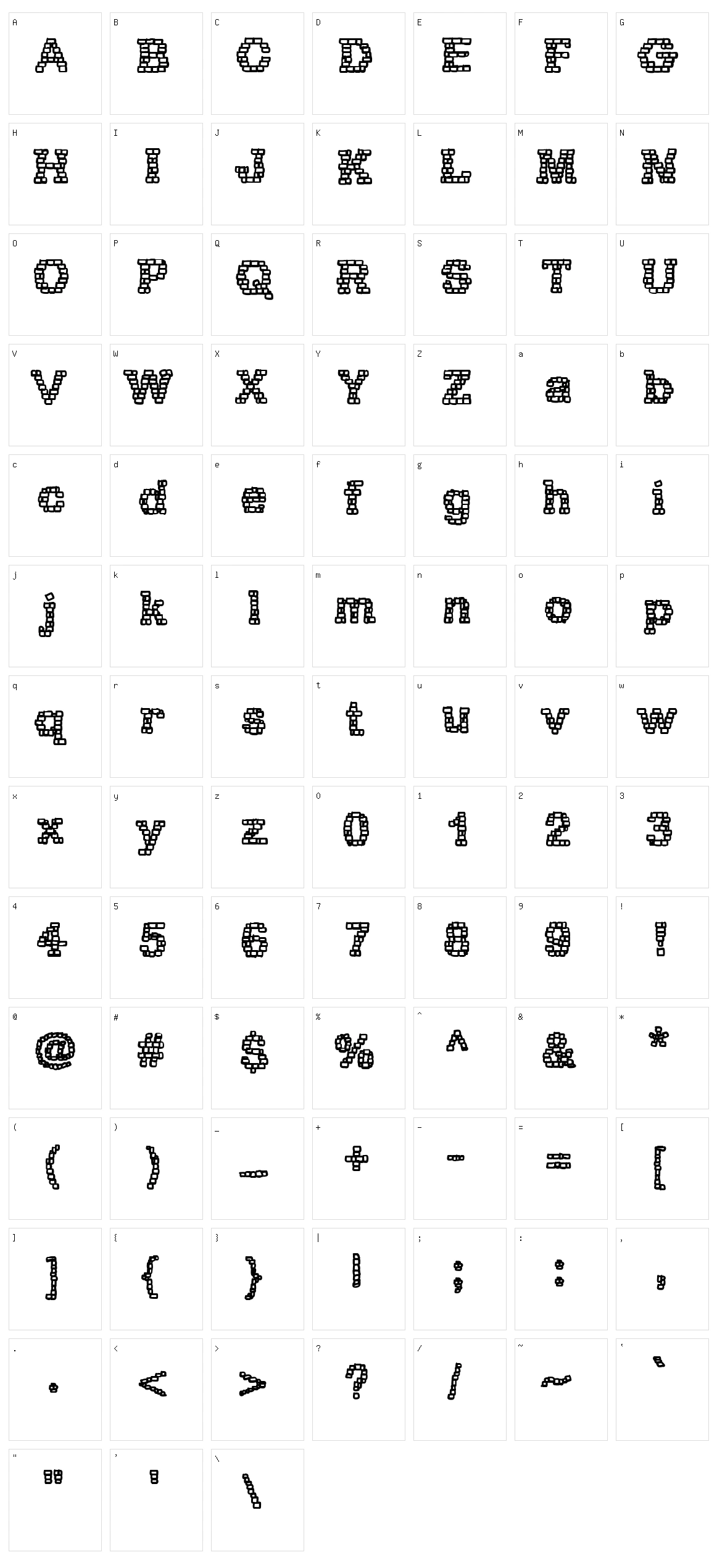
The free font RH Brickhaus Proto is carefully designed by Robothaus, showcasing a thoughtful balance of creativity and usability and falls under the Cartoon font style. When you download the ZIP file, it contains only 649.17 KB of font files, making it lightweight and quick to download. Please review the license details below to understand permitted usage and distribution rights. If license information is not available, we recommend using this font for personal projects only or contacting the author directly for commercial usage permissions.